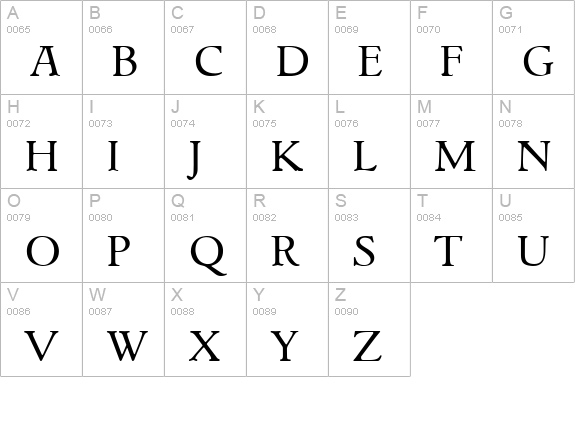
Goudita SF Font Details
Goudita SF is a stunning and modern serif font that exudes elegance and sophistication. With its unique blend of sharp lines and smooth curves, this typeface is perfect for adding a touch of class to any design project. Whether you're creating invitations, logos, or branding materials, Goudita SF is sure to make a lasting impression. What makes Goudita SF even more appealing is that it is available for free download at FontsMarket.com. That's right, you can easily access this beautiful font without any cost. So why wait? Enhance your designs with Goudita SF today and elevate your creative projects to new heights of style and professionalism.